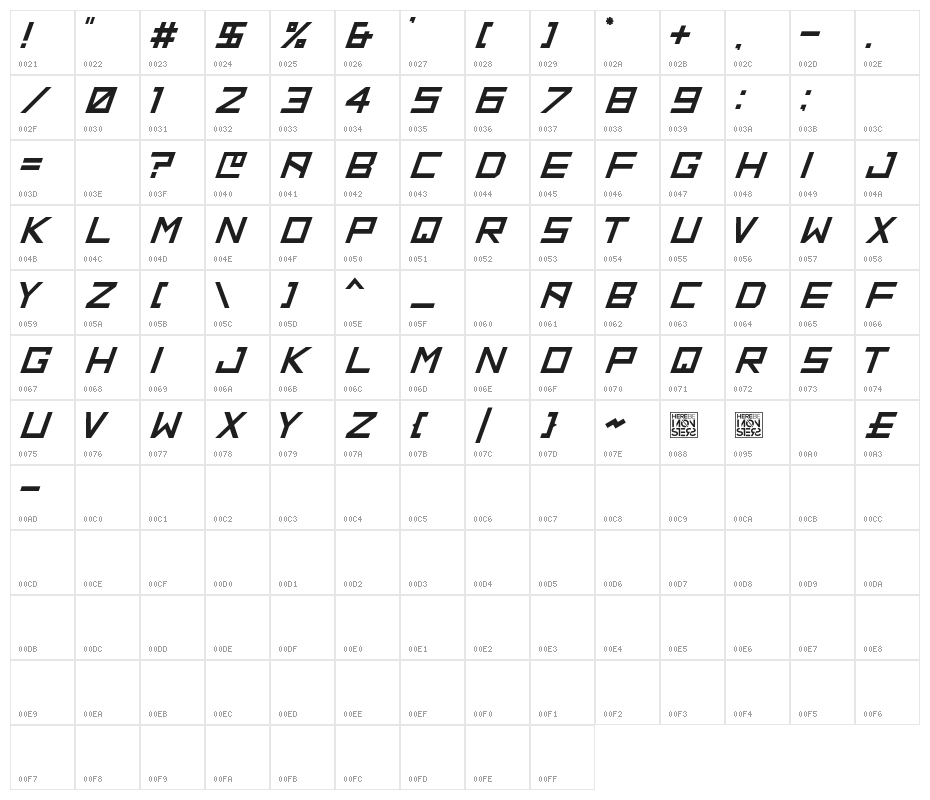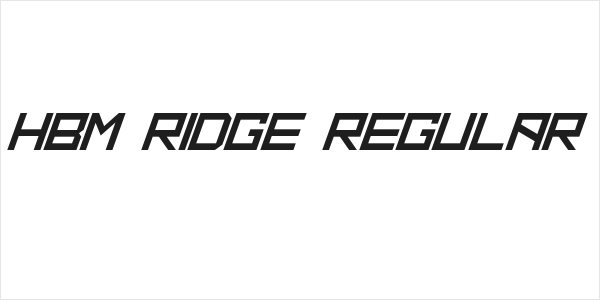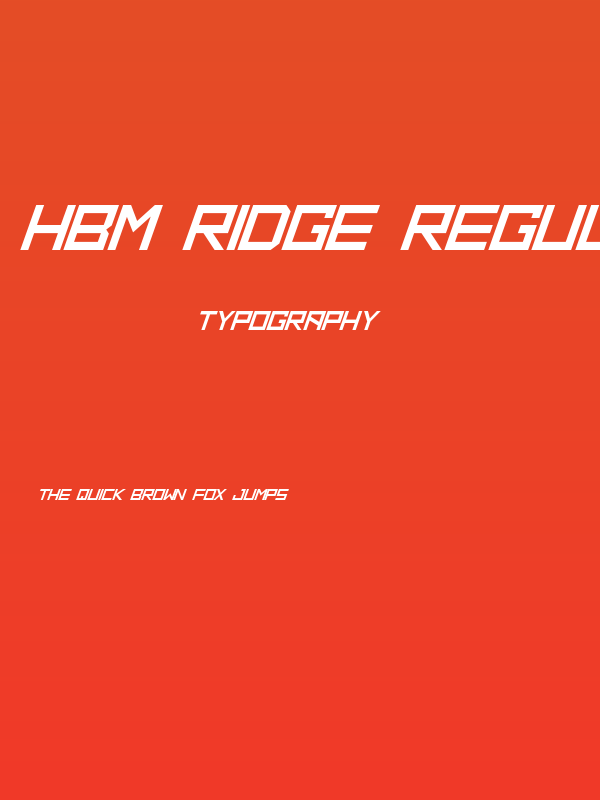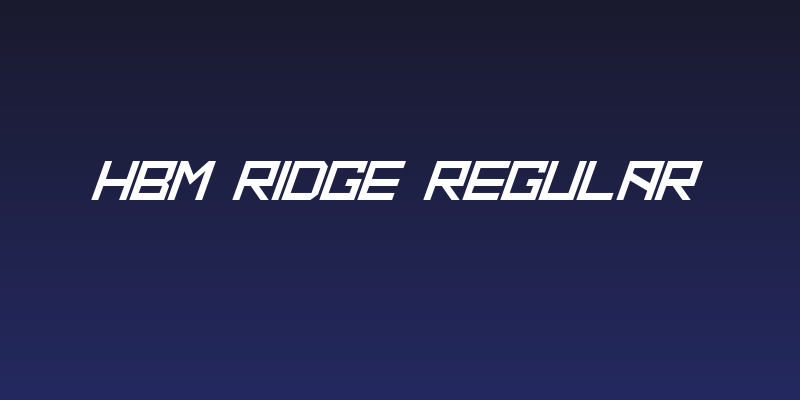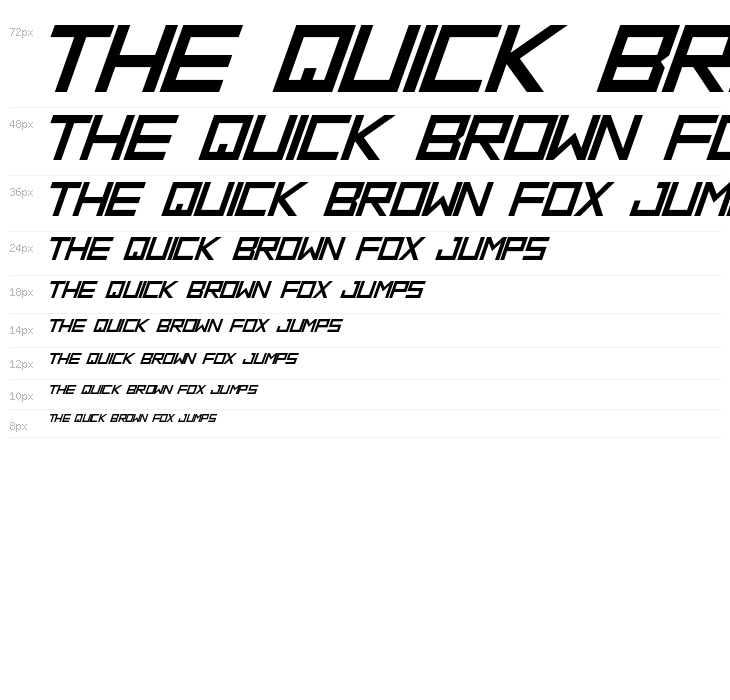
HBM Ridge Regular Font
HBM Ridge Regular Description
This font features a bold, angular design with a futuristic and dynamic appearance. The characters are slanted, giving a sense of motion and energy. The strokes are thick and consistent, with sharp edges and a geometric structure. The uppercase and lowercase letters maintain a uniform style, enhancing readability while retaining a distinctive look. The numerals and special characters are crafted to match the overall aesthetic, making it suitable for attention-grabbing designs.
| Proposed Projects | Ideal for sports branding, tech-related designs, video game titles, and dynamic posters. |